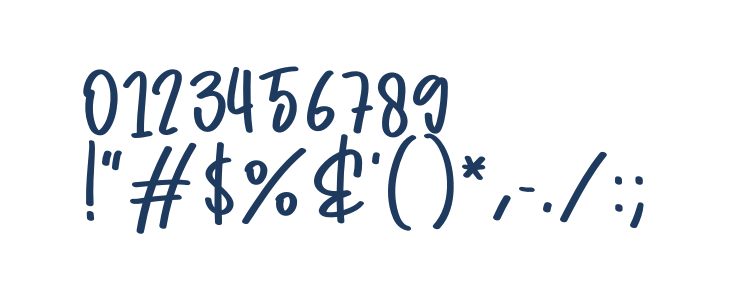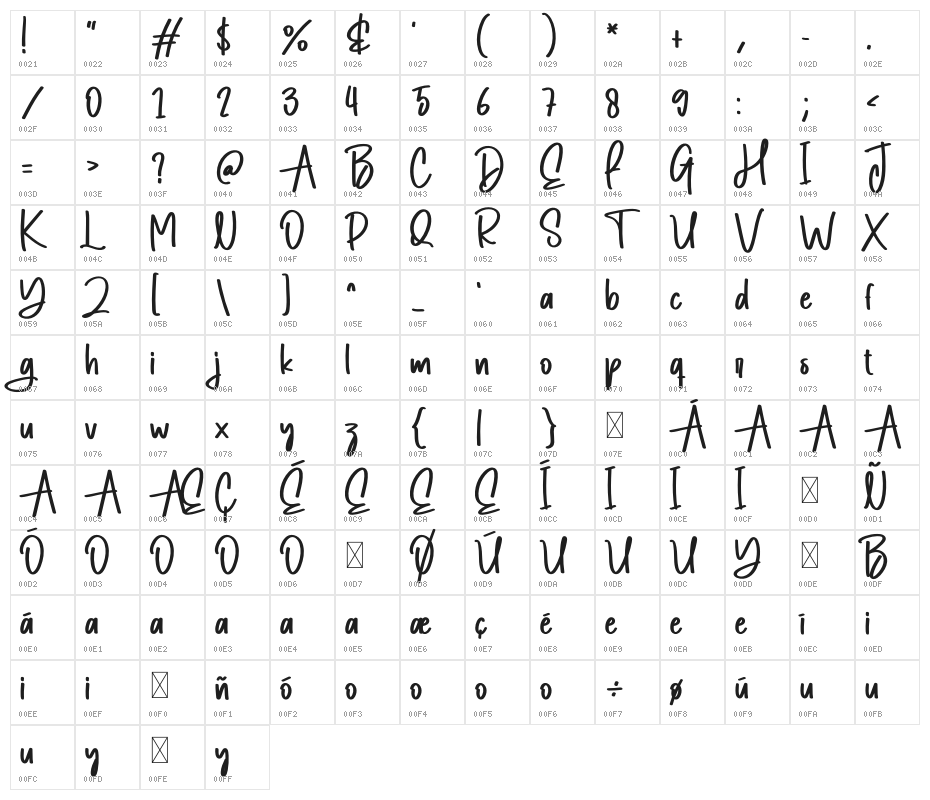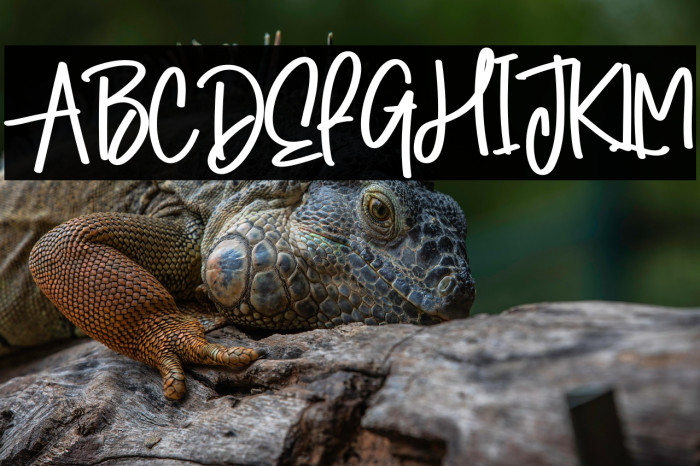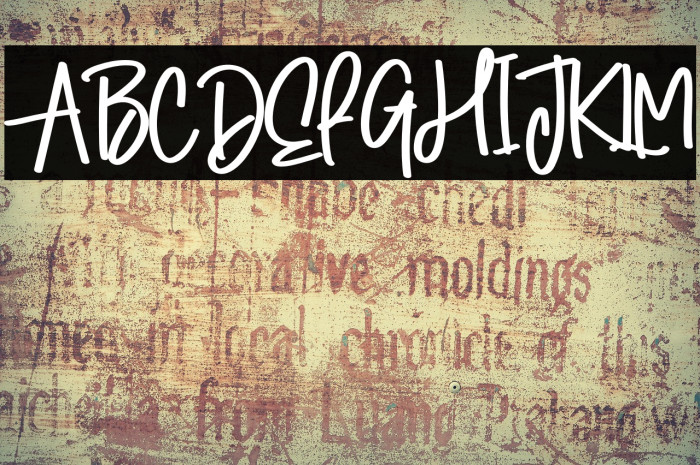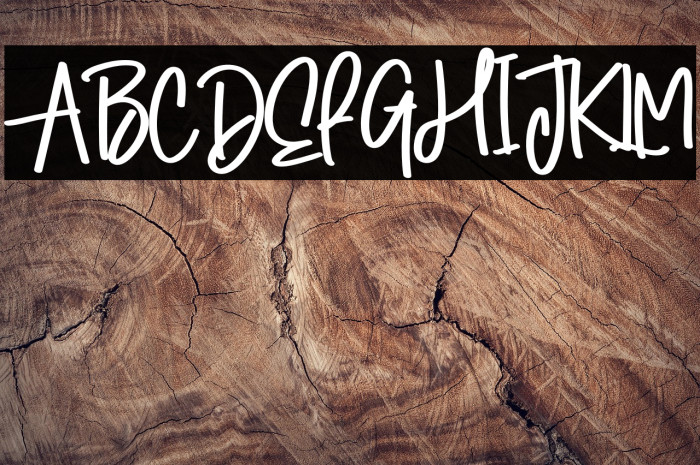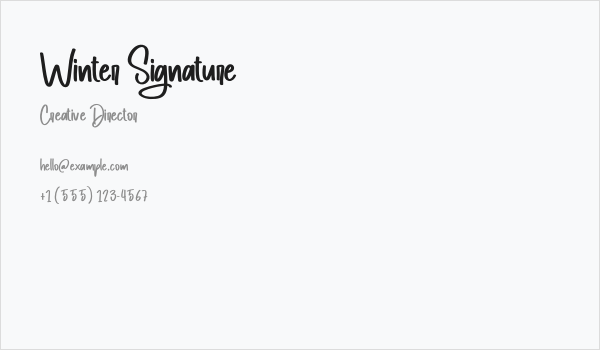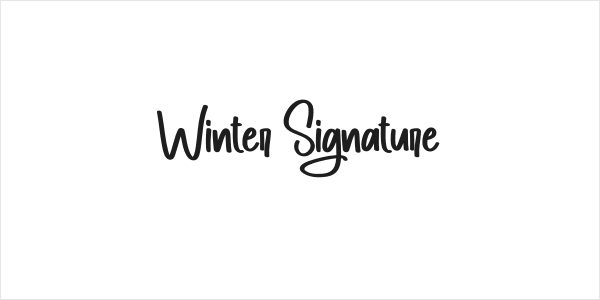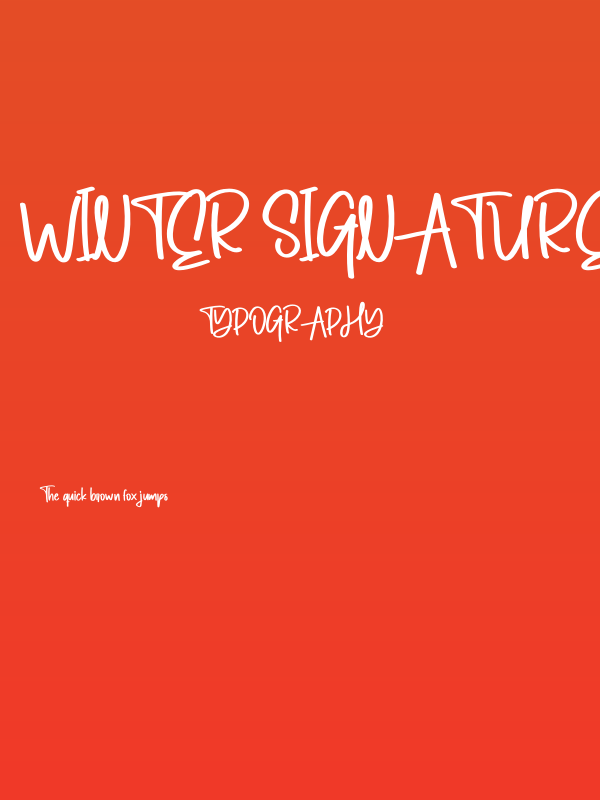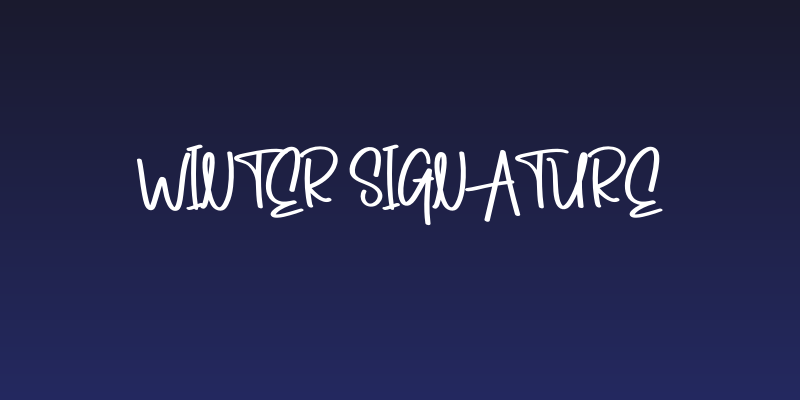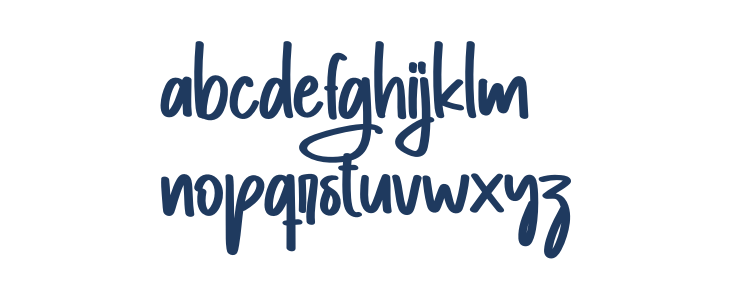
Winter Signature Font
Winter Signature Description
A casual, handwritten script font with a playful and informal style, featuring tall uppercase letters and rounded lowercase characters with varying stroke thickness.
| Overall Style | Casual, playful, informal |
| Use Case | Headlines, logos, social media posts, invitations |
| Proposed Projects | Personal branding, greeting cards, social media graphics, informal invitations, and creative headlines. |